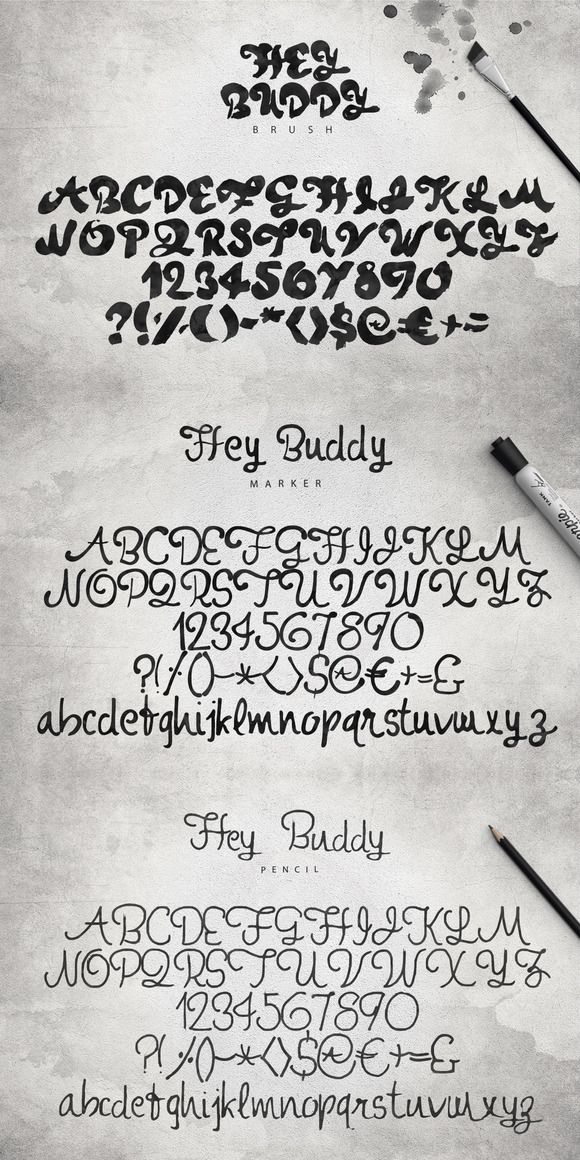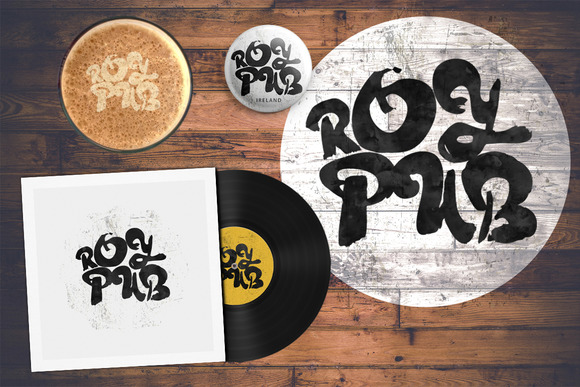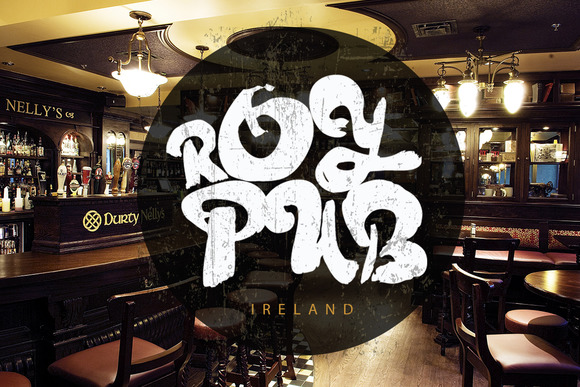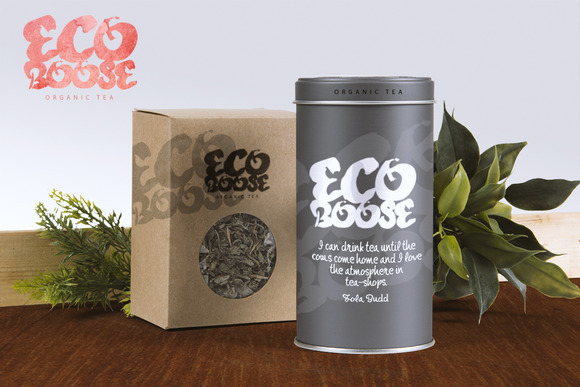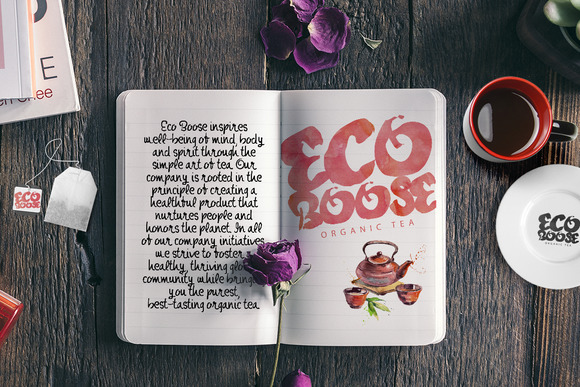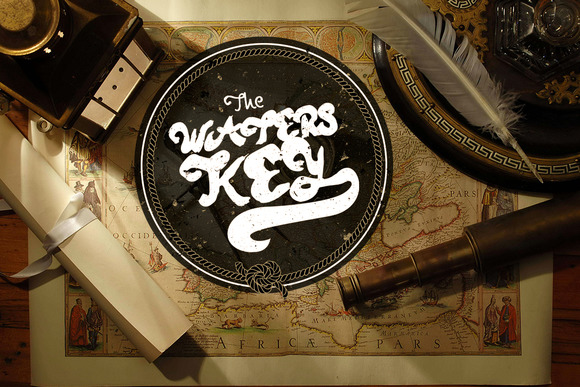
Hey Buddy Font
About Hey Buddy Font
Hey Buddy is a beautifully decorated stylish font family that consists out of:
Hey Buddy Regular
Hey Buddy Brush
Hey Buddy Pencil